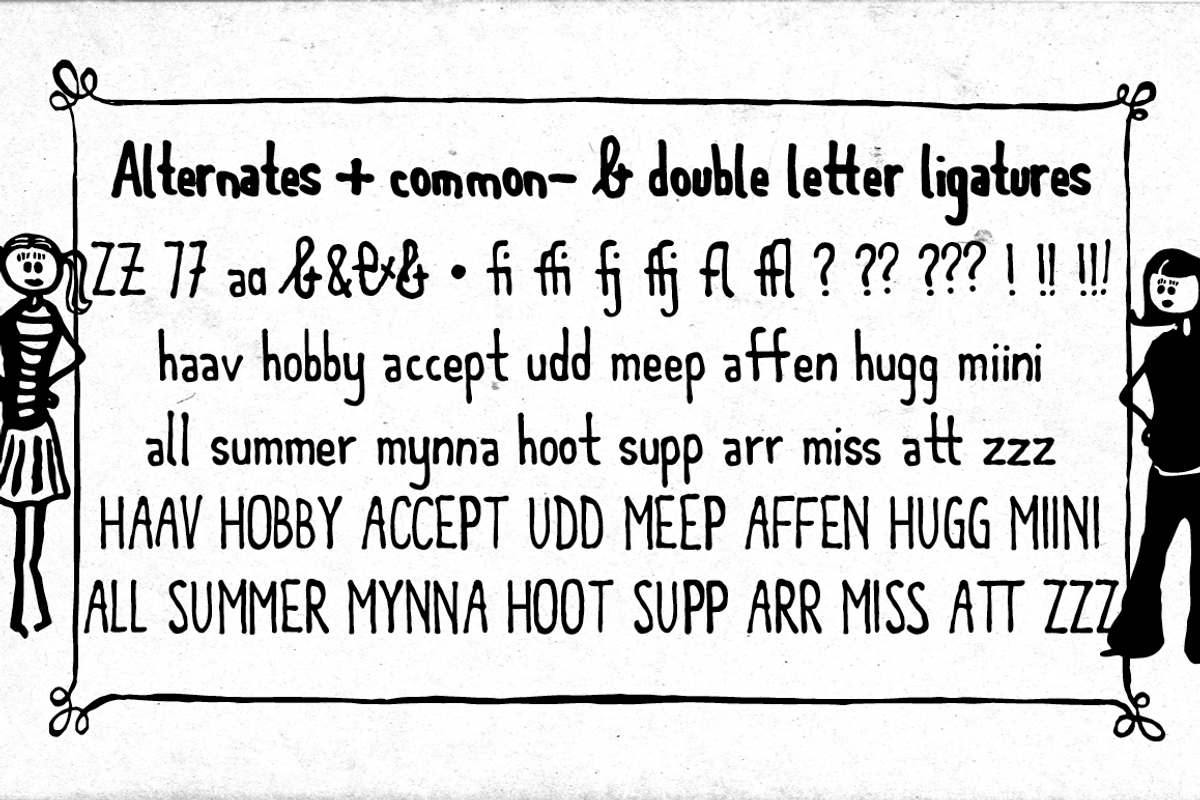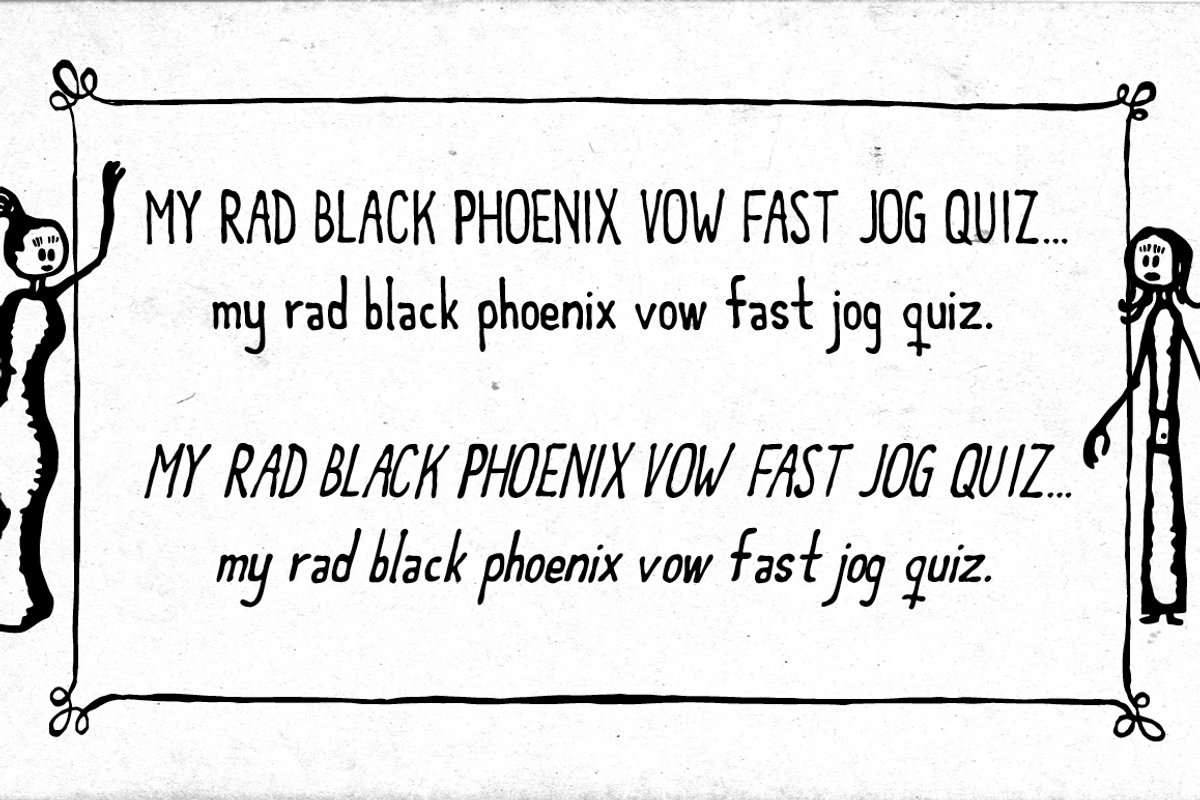
Meep Sisters - 8 fonts
- Meet the Meep sisters - a handwritten narrow font in 4 weights - regular & slanted with common- and many double letter ligatures for a natur